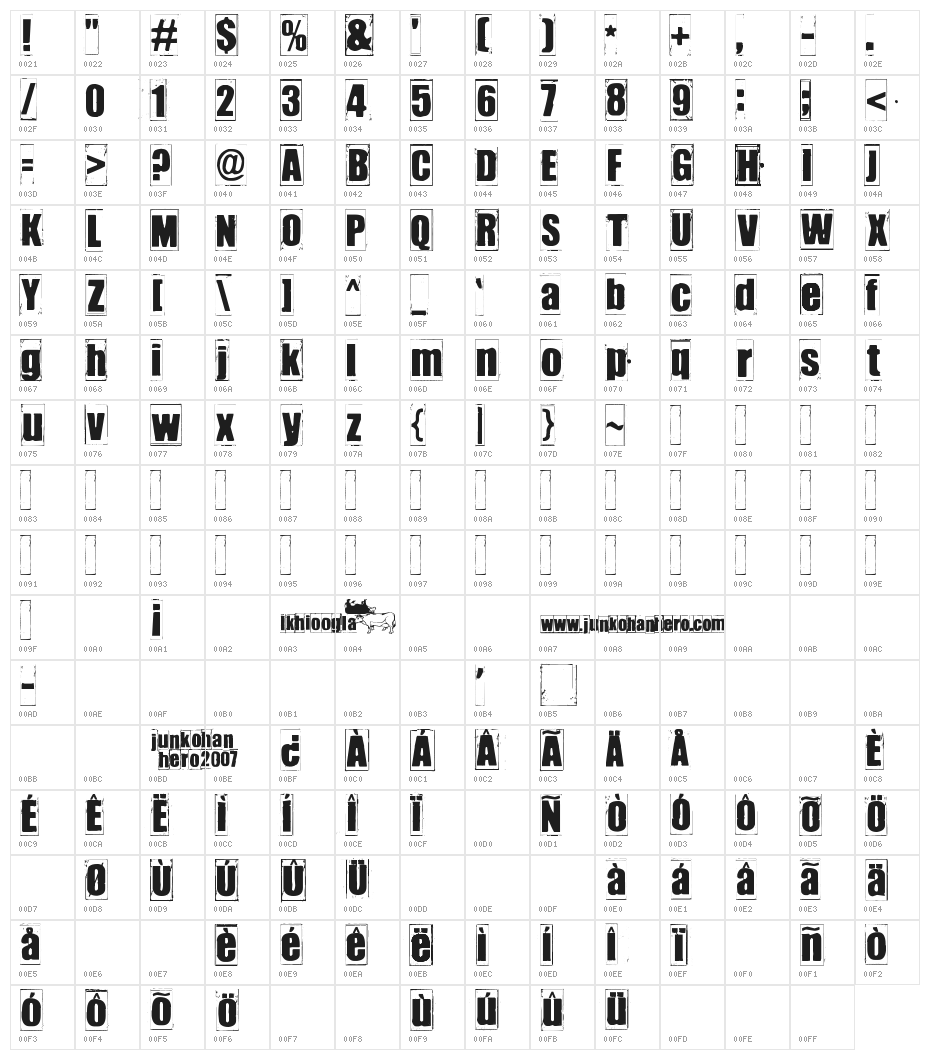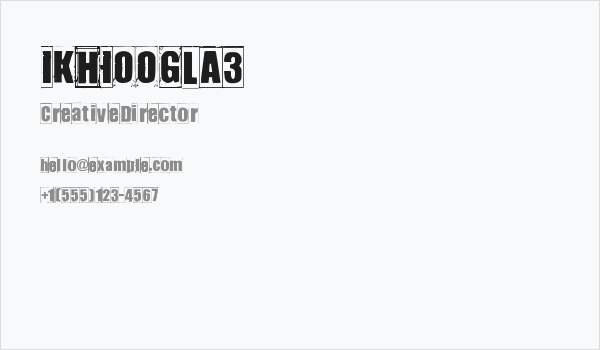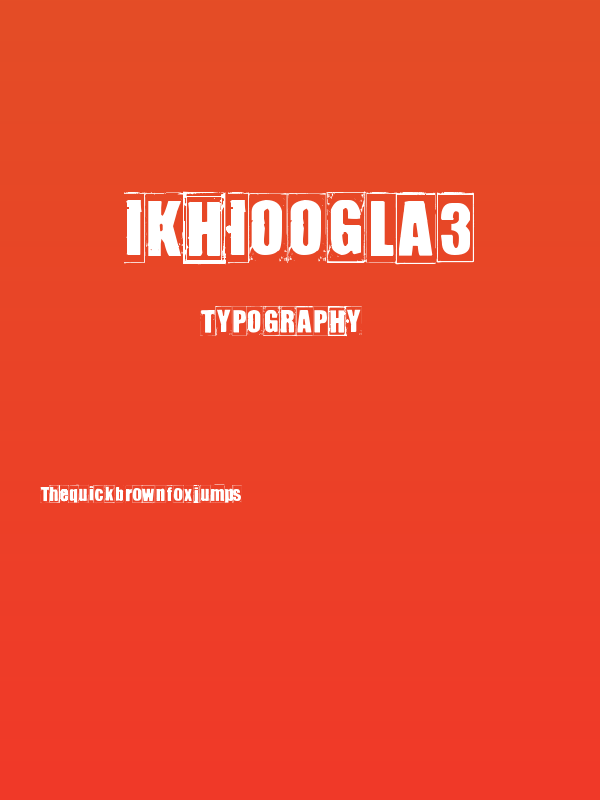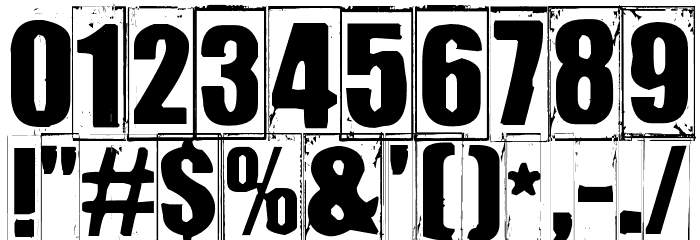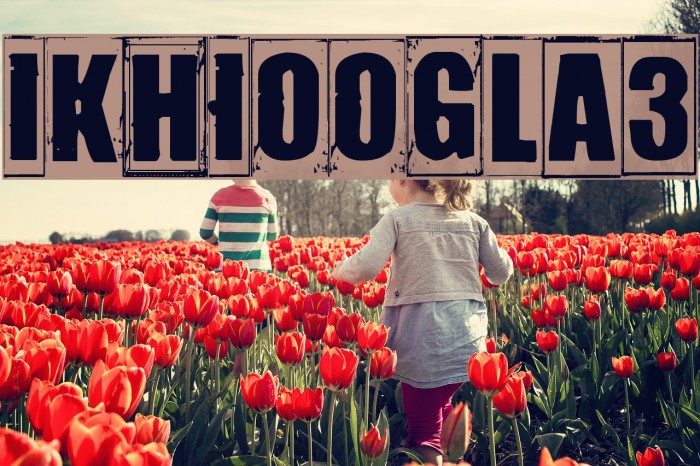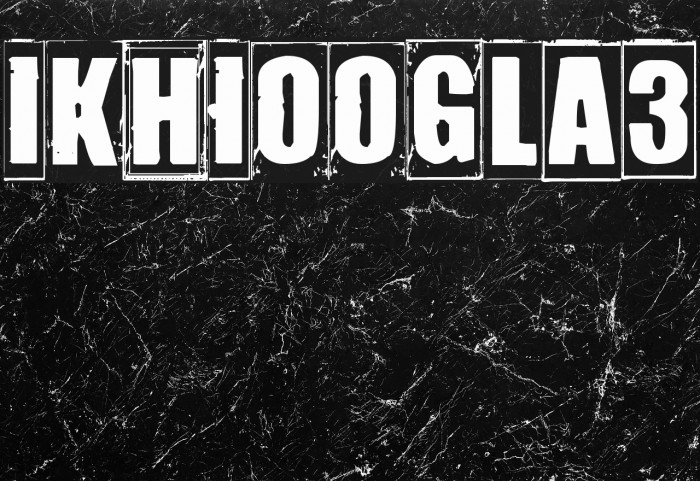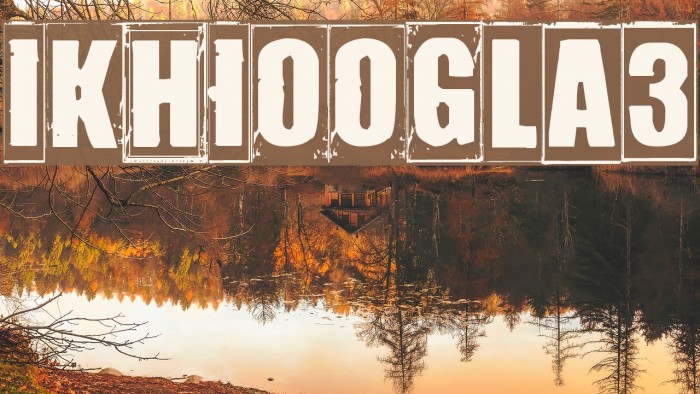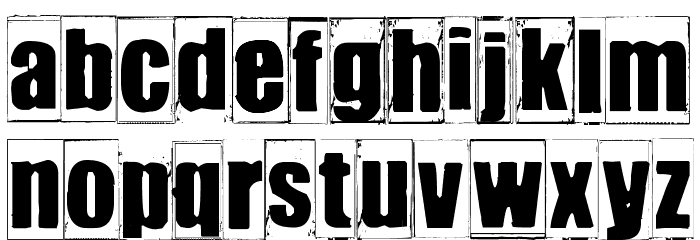
IKHIOOGLA3 Font
This font features a bold and distressed style, reminiscent of vintage typewriter or stamp impressions. Each character is enclosed in a box, adding a unique, rugged texture that gives it a worn, industrial feel. The uppercase letters are strong and impactful, while the lowercase letters maintain the same boldness, ensuring consistency across the typeface. The numbers and special characters follow the same design, making them suitable for creating attention-grabbing headlines or artistic designs. The overall aesthetic is both retro and modern, making it versatile for various creative projects.
| Overall Style | Vintage, Industrial |
| Proposed Projects | Ideal for poster designs, album covers, branding projects, and any creative work that requires a bold, vintage touch. |